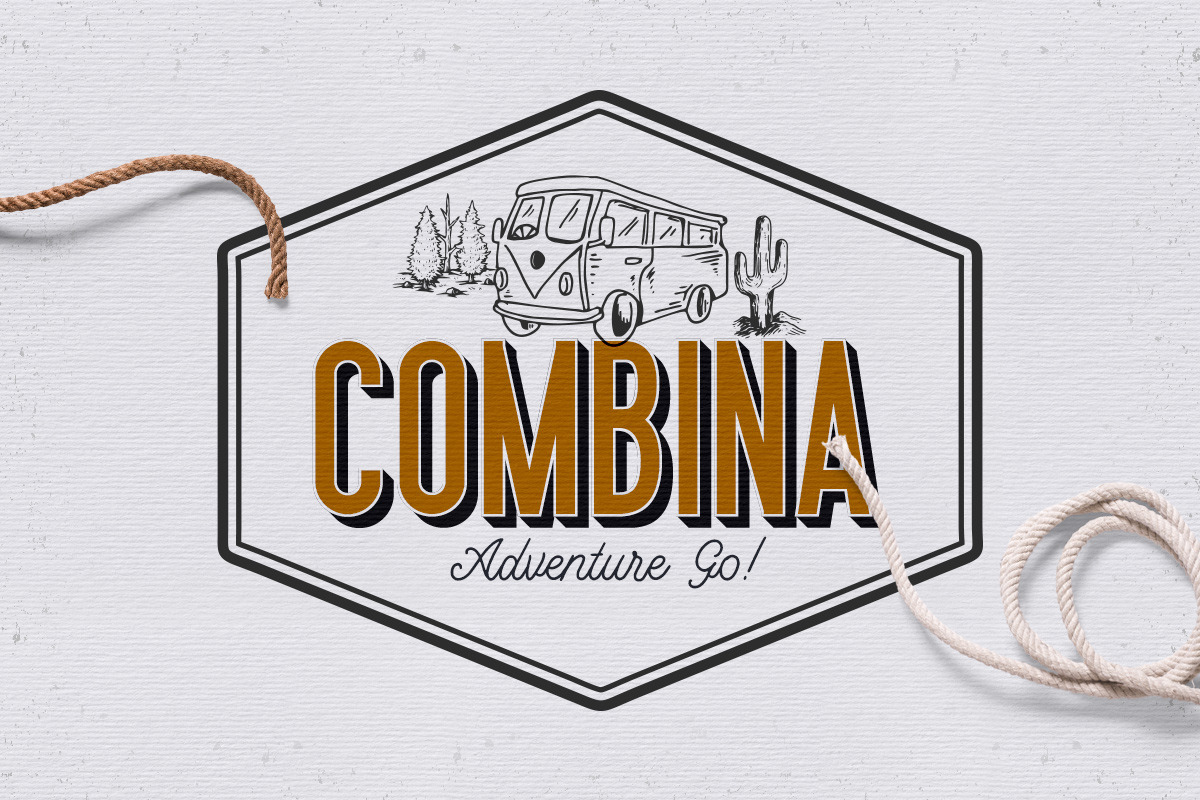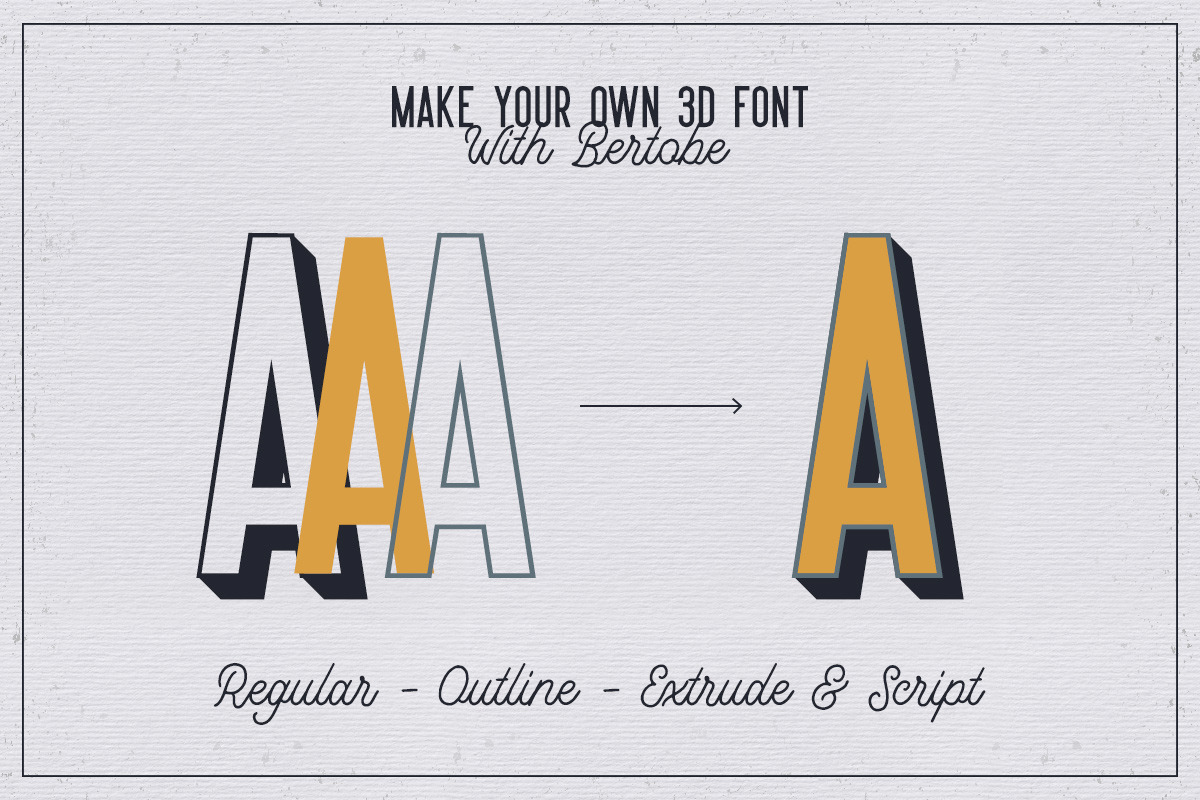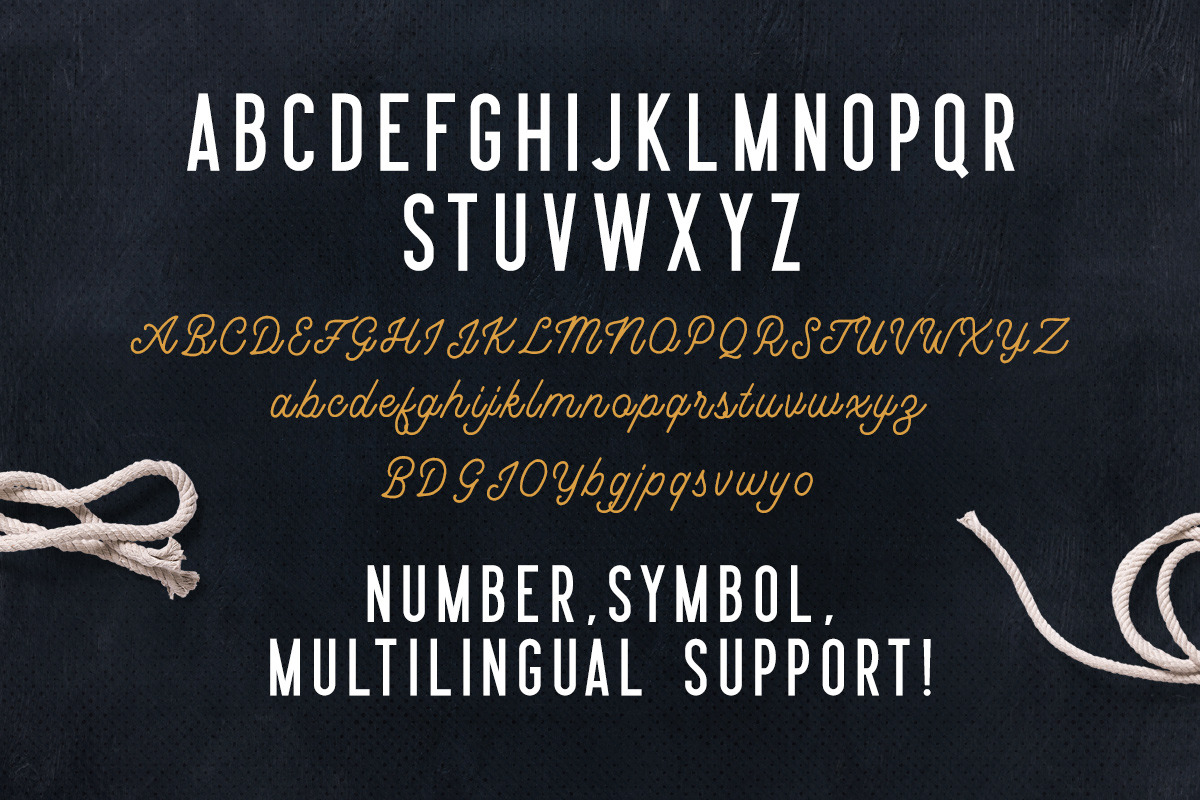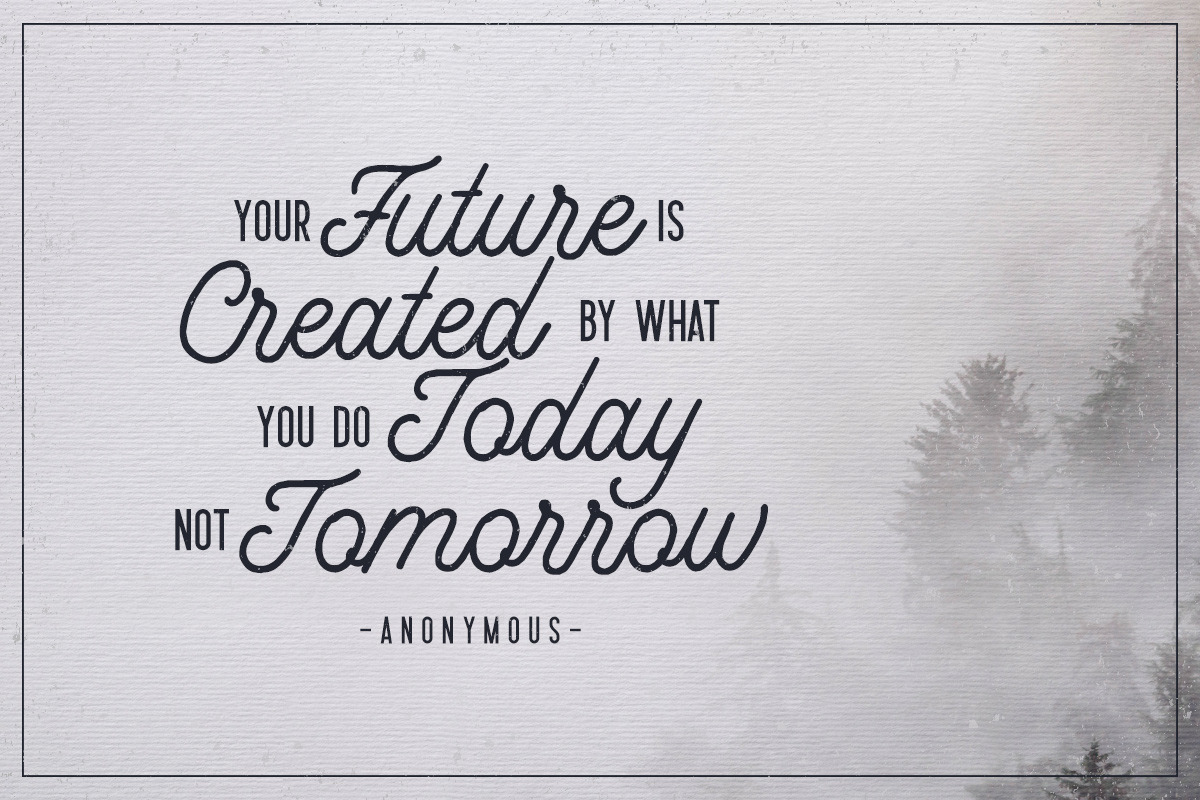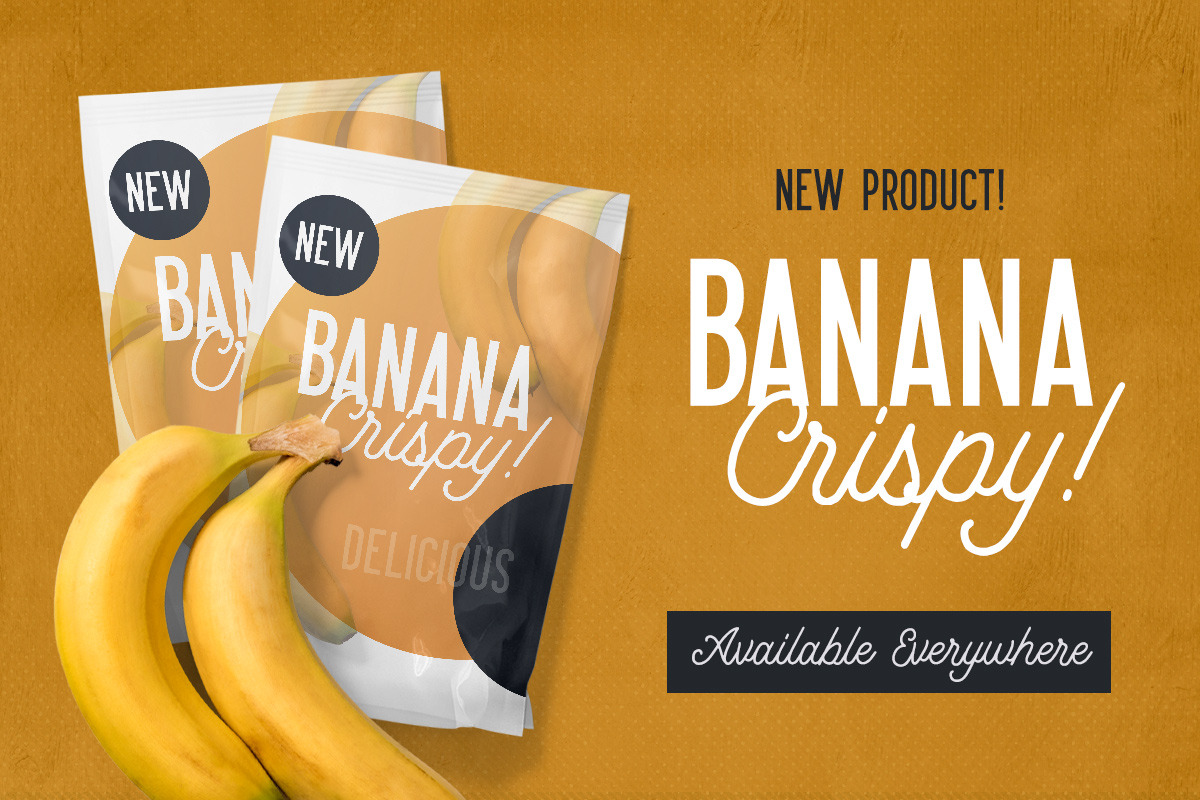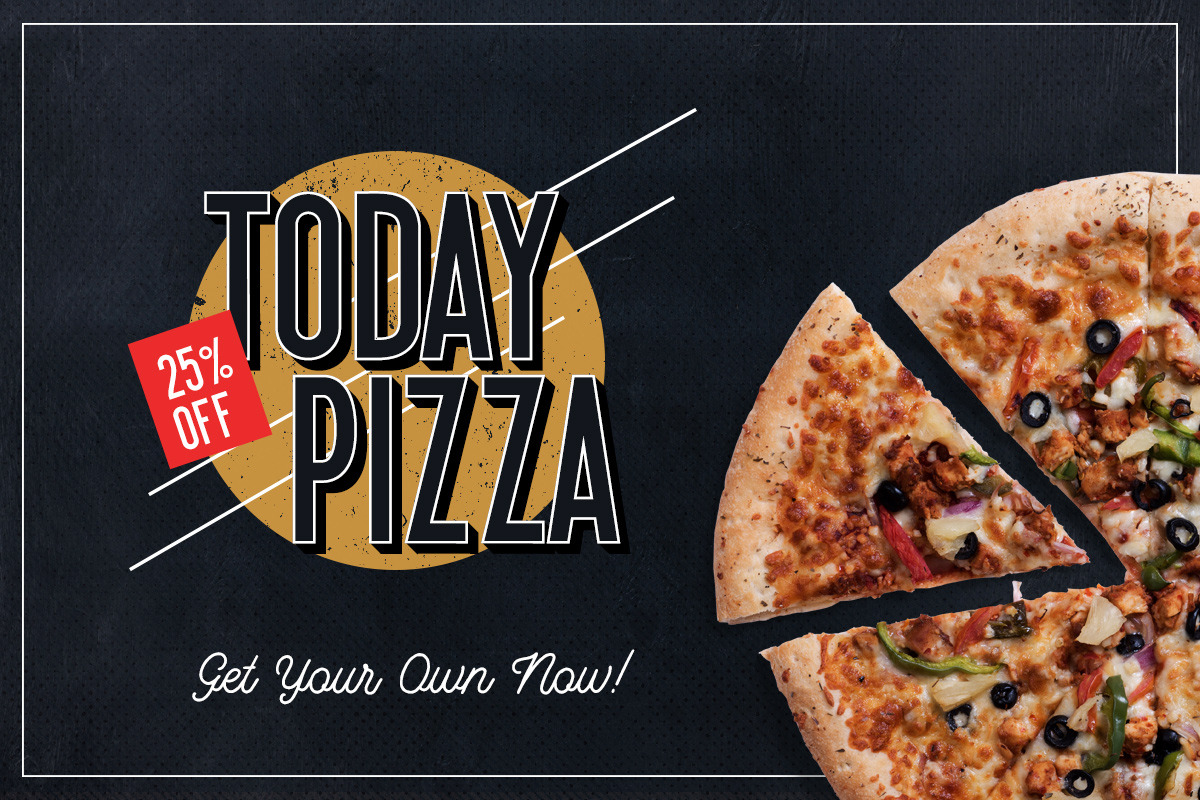
Introducing, Bertobe - Layered Font!
Bertobe is layered font that contain Regular, Outline, and Extrude style. This font also comes with simple Monoline Script that will compliment each other!
Bertobe also support number, symbol, PUA Encoded, and Multi Language.
So, let's make a 3D looking text with Bertobe!
- This font also comes with simple Monoline Script that will compliment each other!